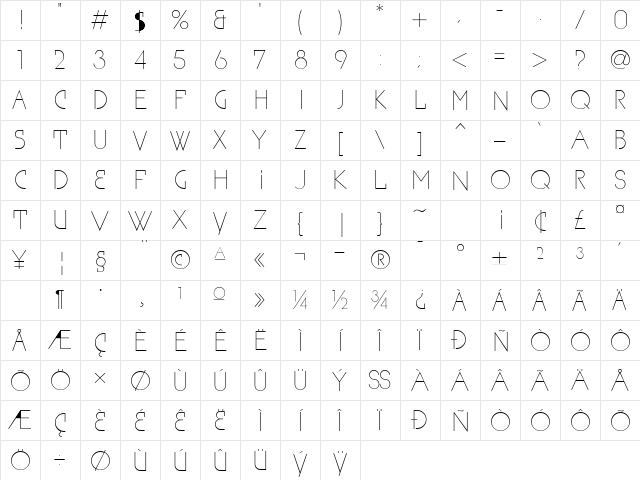
SPThais Light
Design Context for SPThais Typeface
SPThais is a composed and adaptable typeface that performs quietly and consistently across a wide range of design contexts. The delicate stroke weight brings airiness and refinement to layouts.